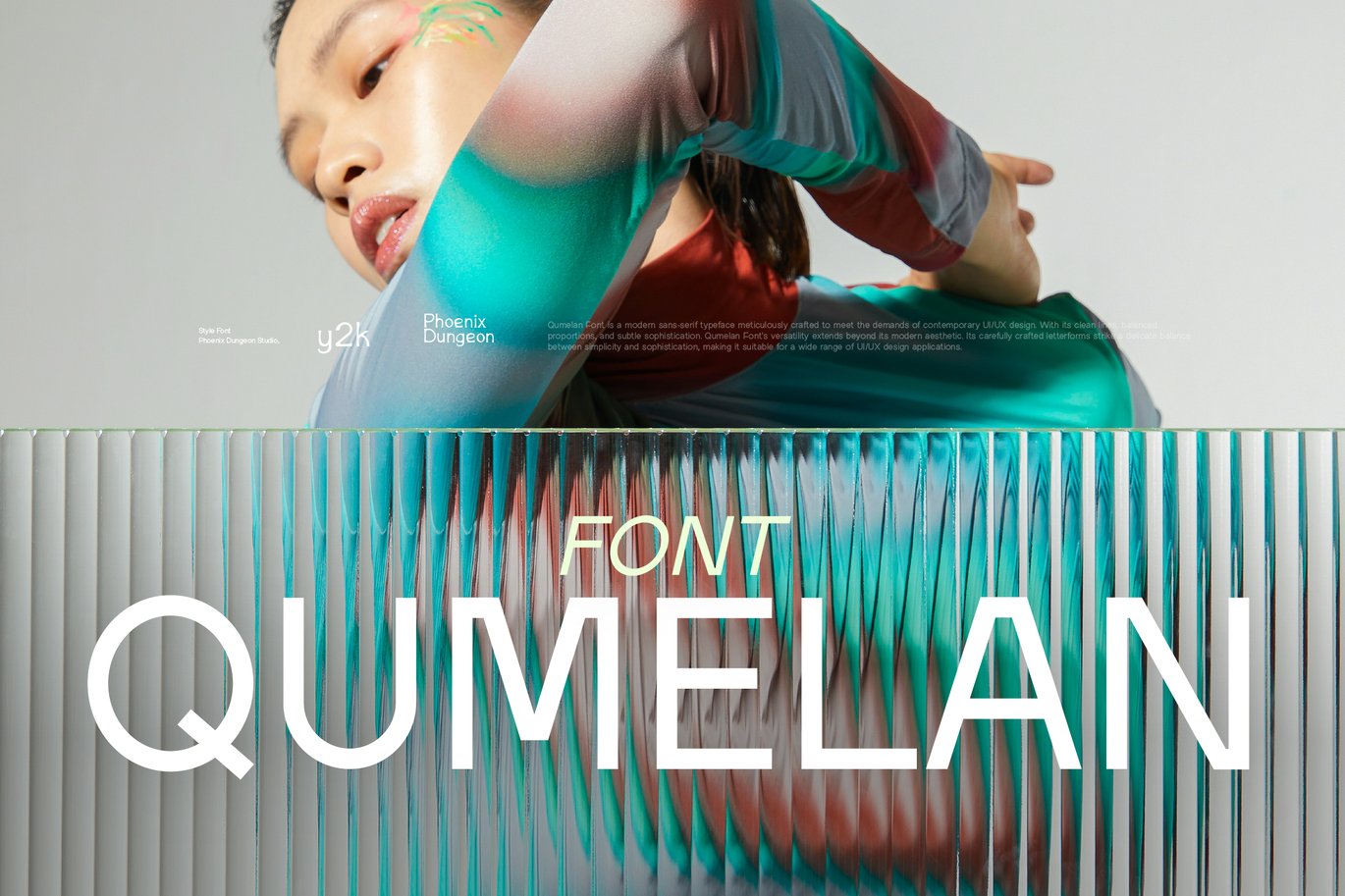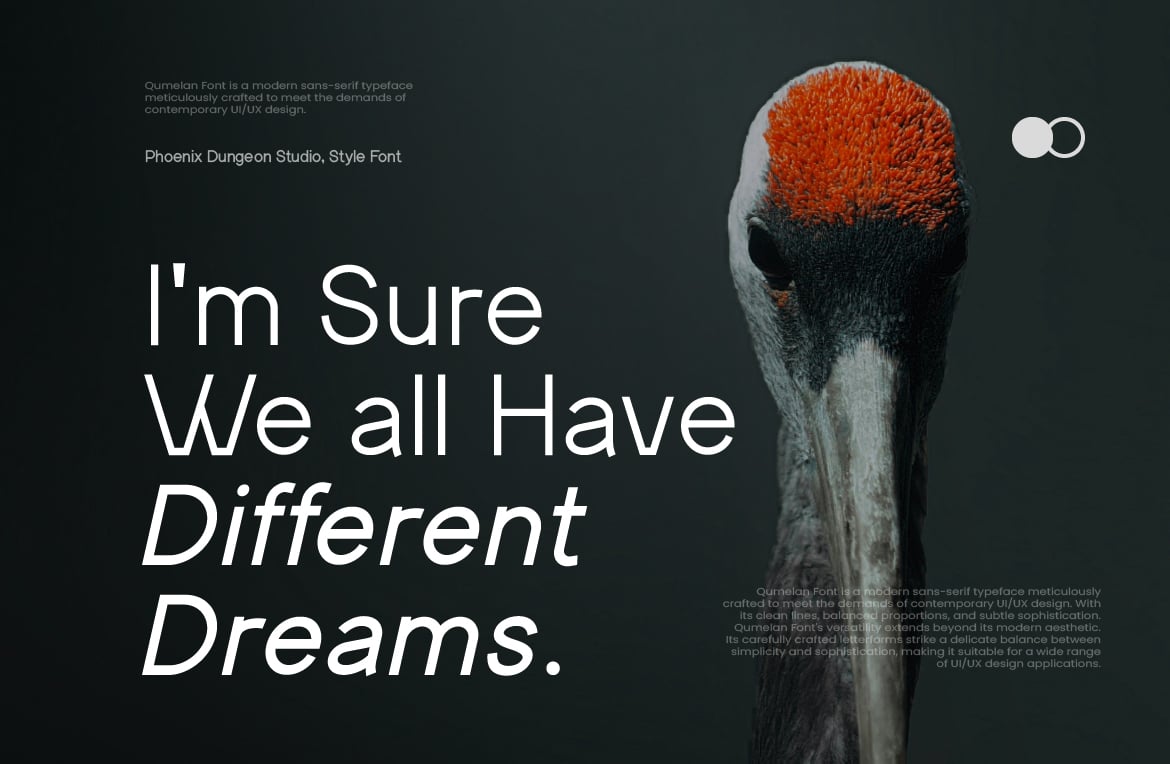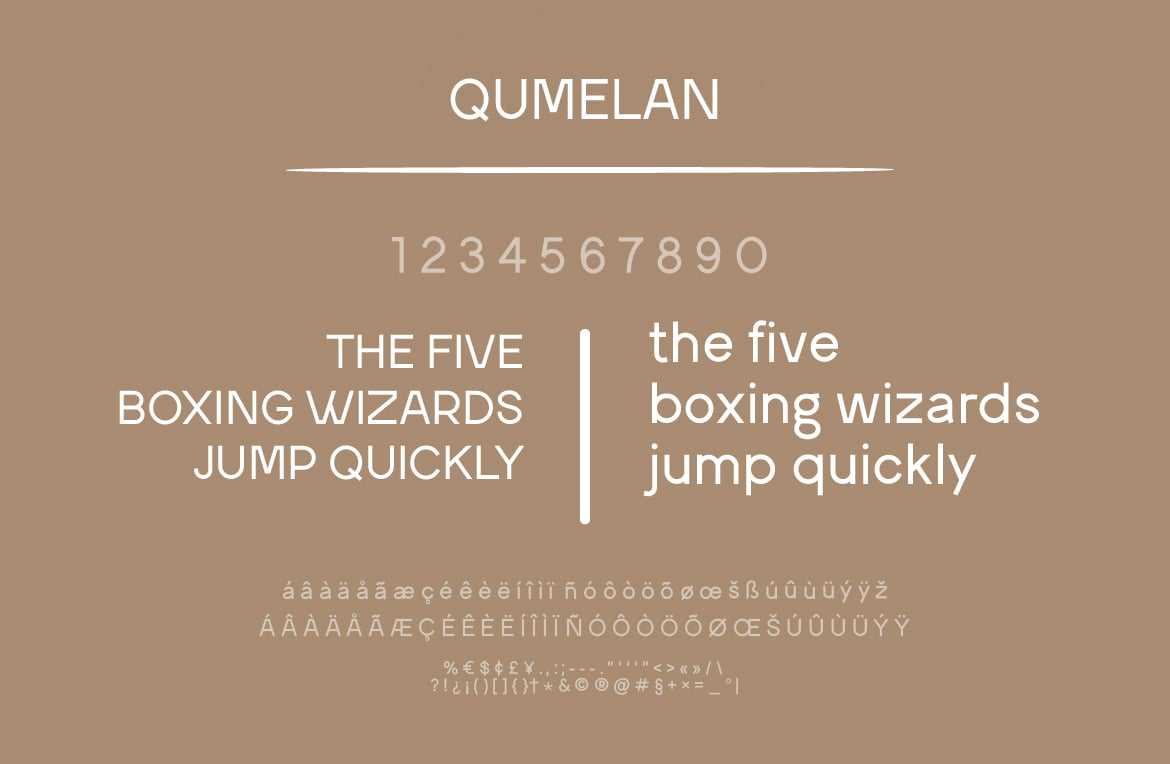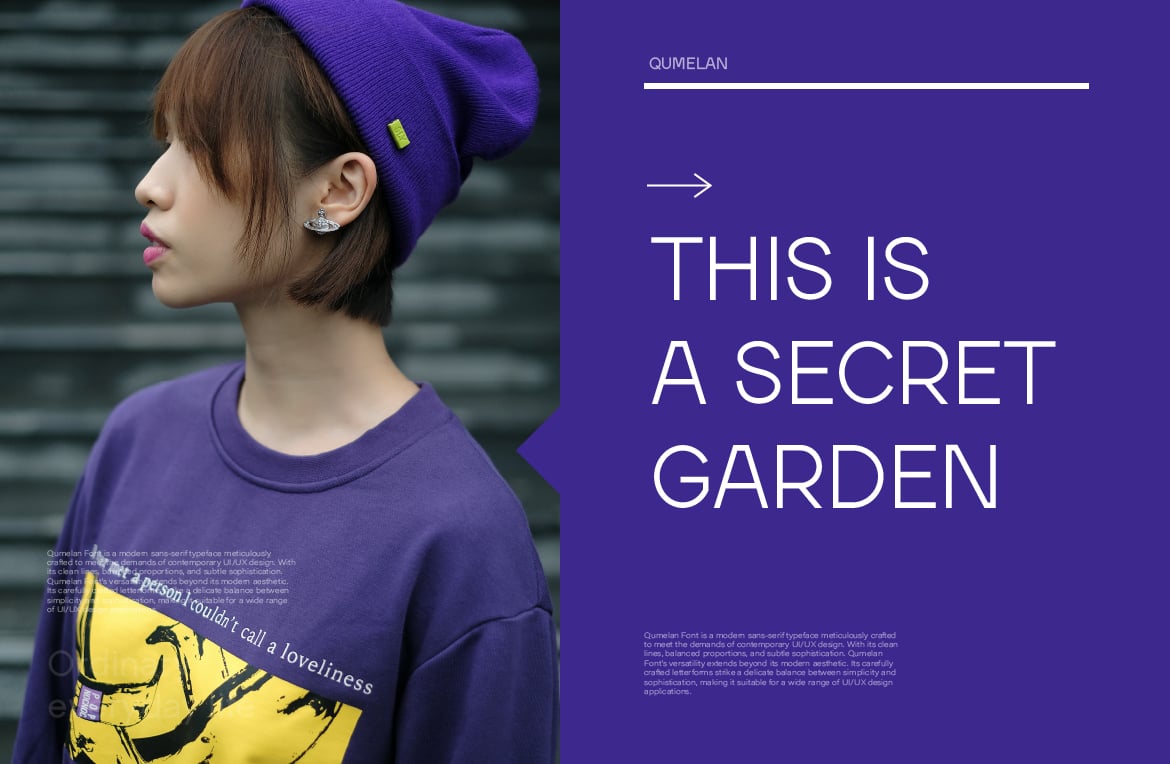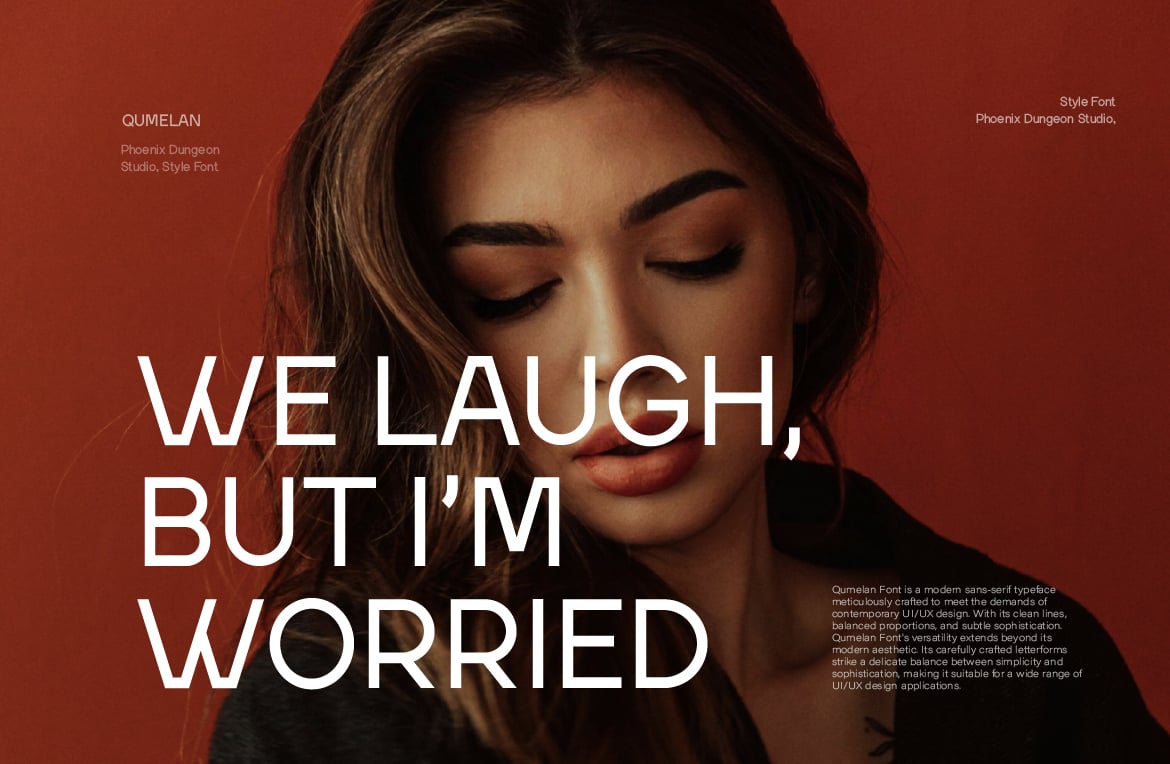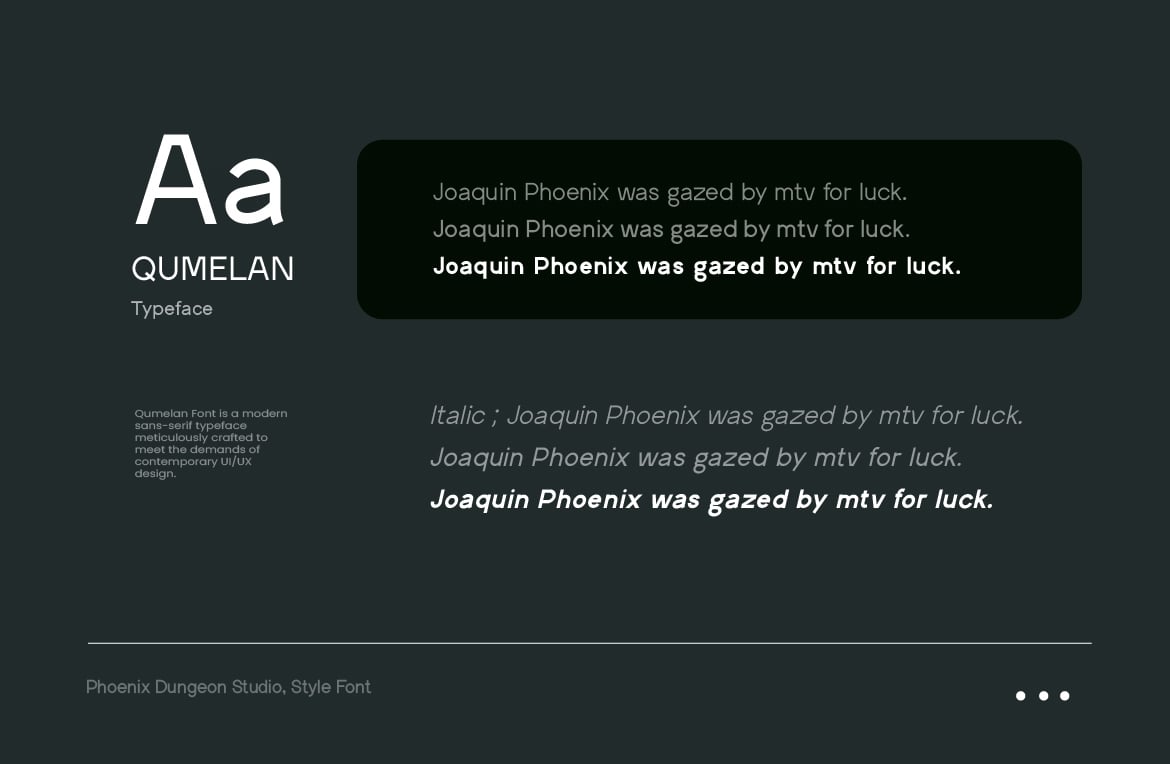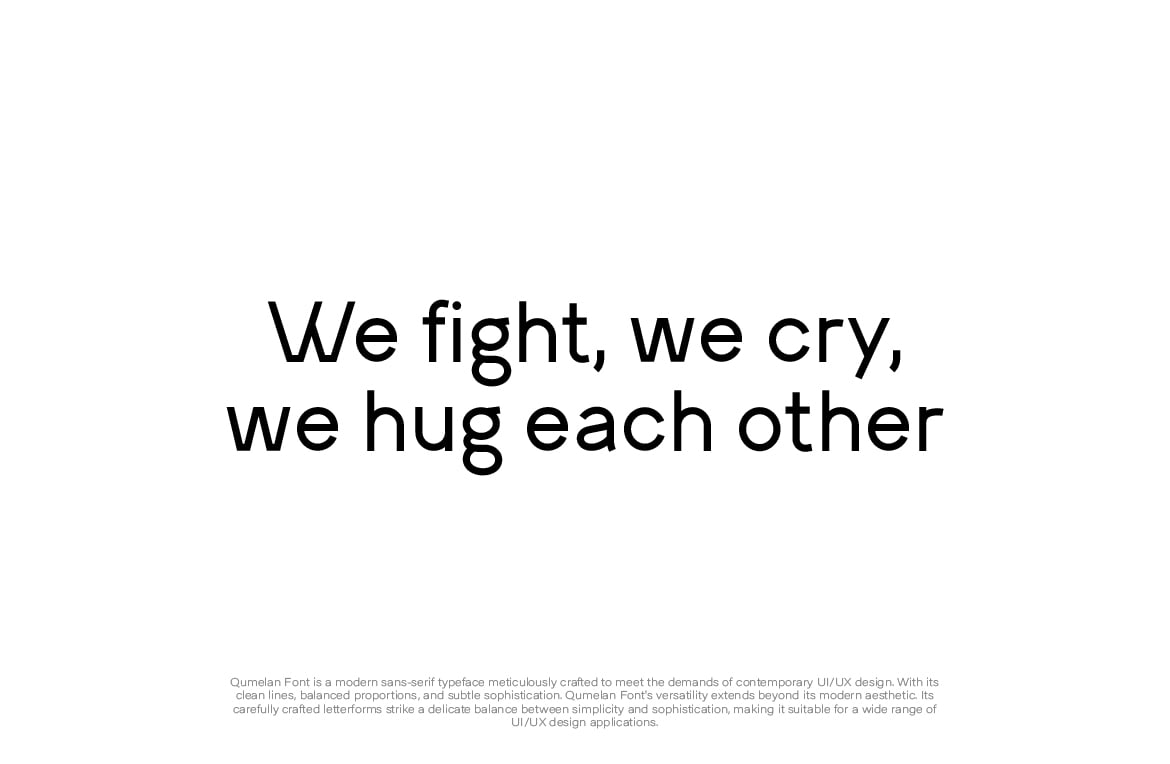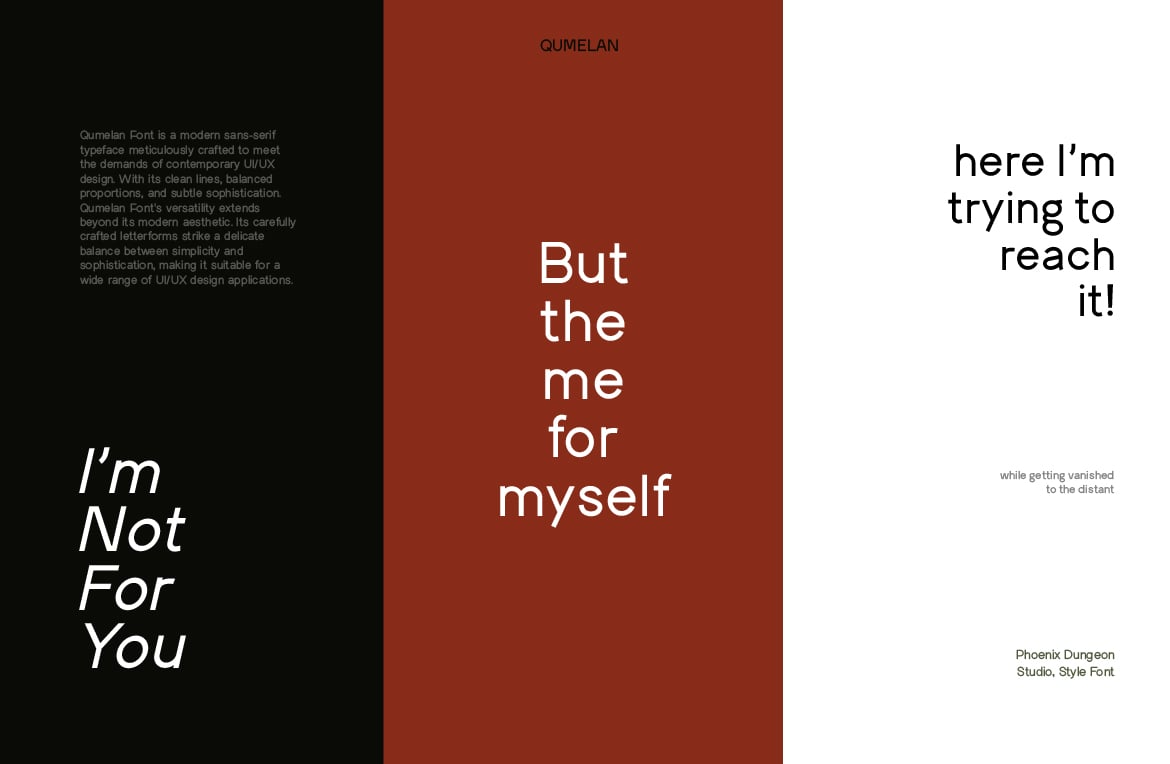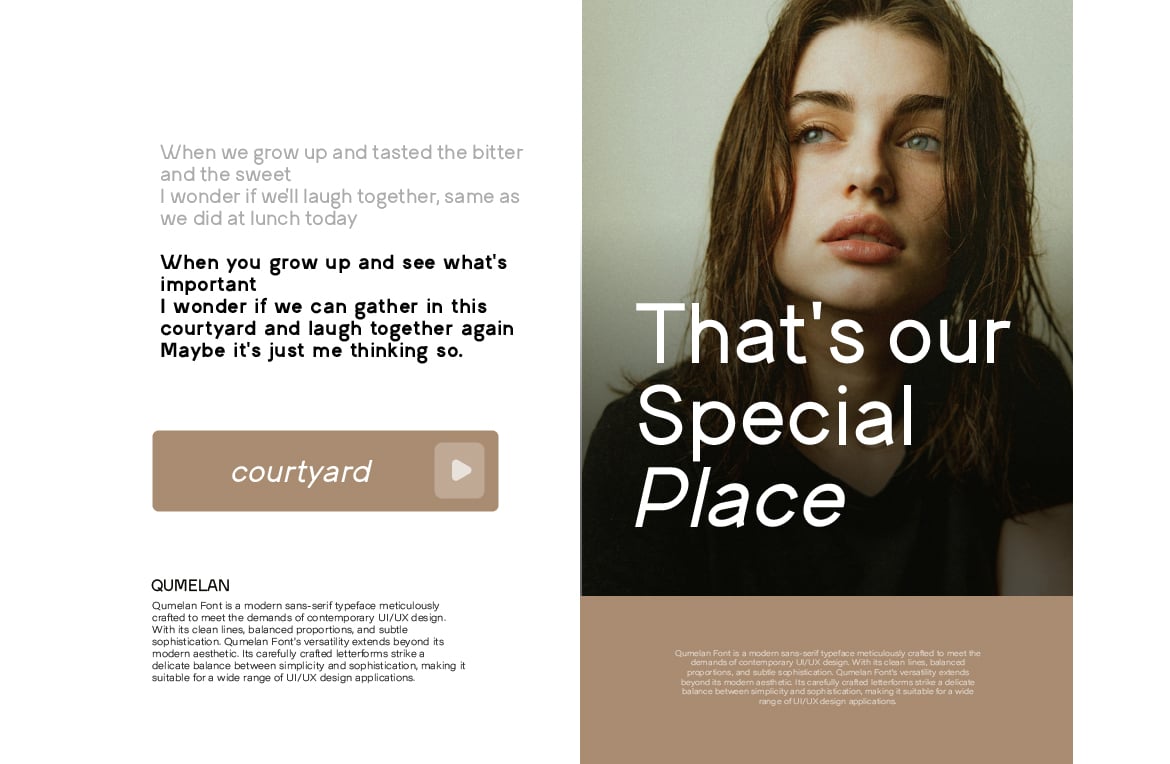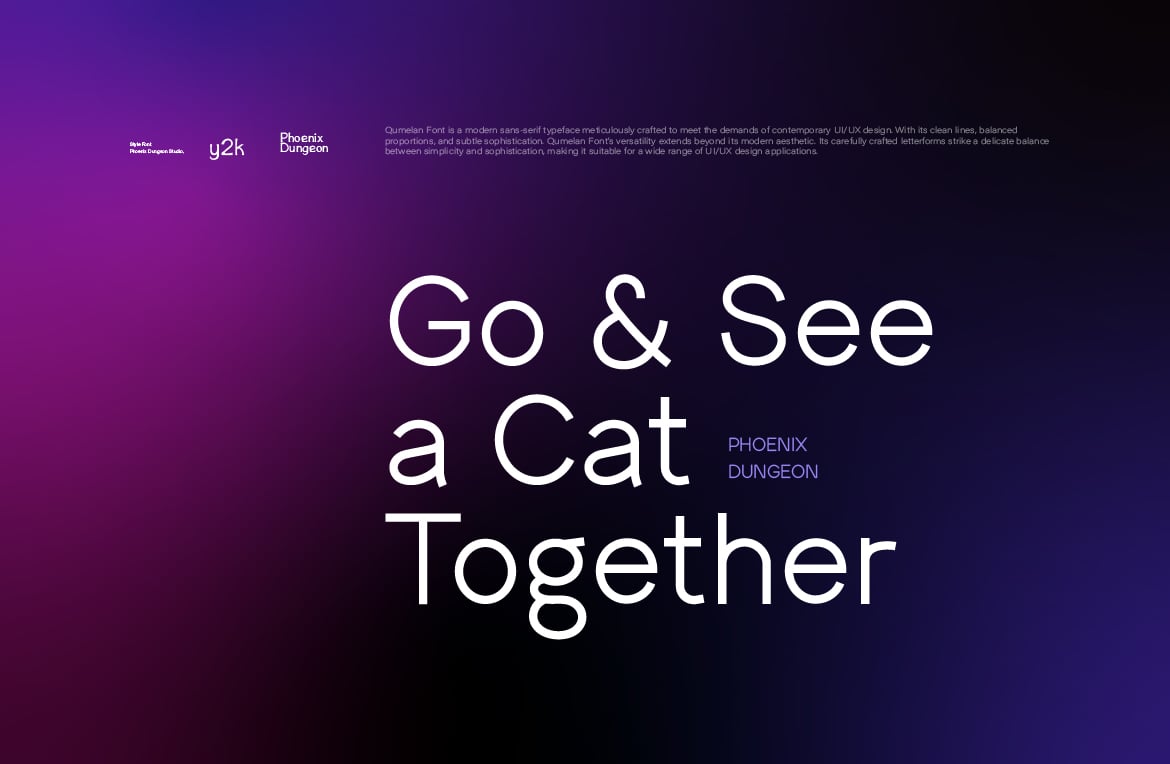
Qumelan Typeface
Qumelan Font is a modern sans-serif typeface meticulously crafted to meet the demands of contemporary UI/UX design. With its clean lines, balanced proportions, and subtle sophistication. Qumelan Font’s versatility extends beyond its modern aesthetic. Its carefully crafted letterforms strike a delicate balance between simplicity and sophistication, making it suitable for a wide range of UI/UX design applications.